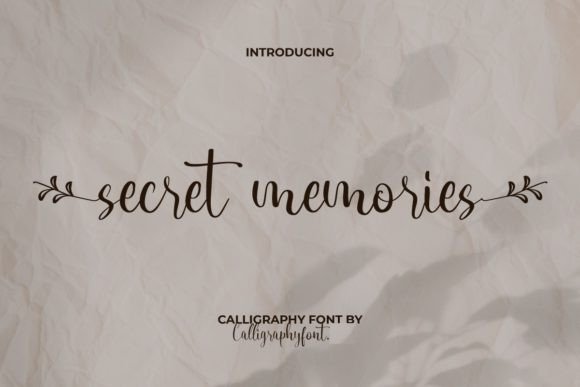
Dive into the world of enchanting lettering with Secret Memories Font, a breathtaking calligraphy font that exudes elegance and romance. Step into a realm where words dance with grace and sophistication, leaving an indelible mark on your creative endeavors.
Unleash the allure of Secret Memories Font, a script font that captivates with its flowing lines and delicate curves. Its timeless beauty adds a touch of class to any design, making it a perfect choice for wedding invitations, branding, stationery, and social media posts.
With Secret Memories Font, your designs will radiate charm and elegance. Its versatility shines through in logos, branding, and social media posts, leaving a lasting impression on your audience.
Let Secret Memories Font be your muse, inspiring you to create captivating designs that evoke emotions and tell stories. Its modern flair blends seamlessly with traditional calligraphy, resulting in a font that is both timeless and contemporary.
Indulge in the artistry of Secret Memories Font and watch your creative visions come to life. Its intricate details and flowing script will add a touch of magic to your designs, leaving your audience spellbound.